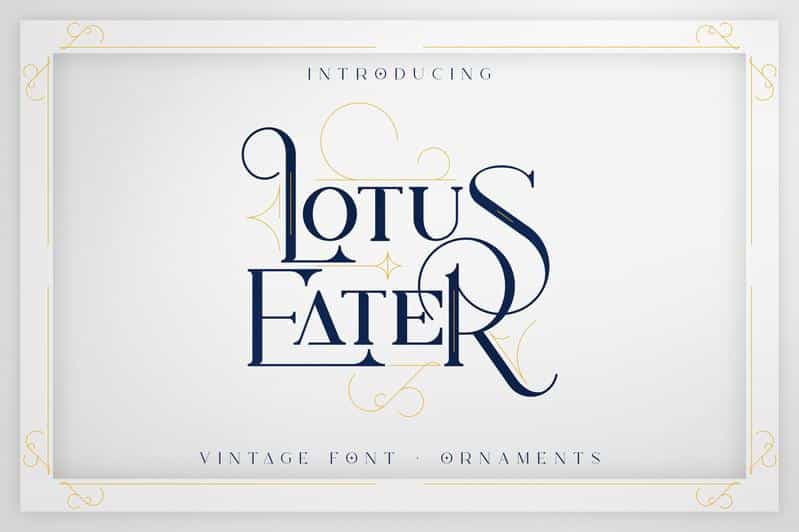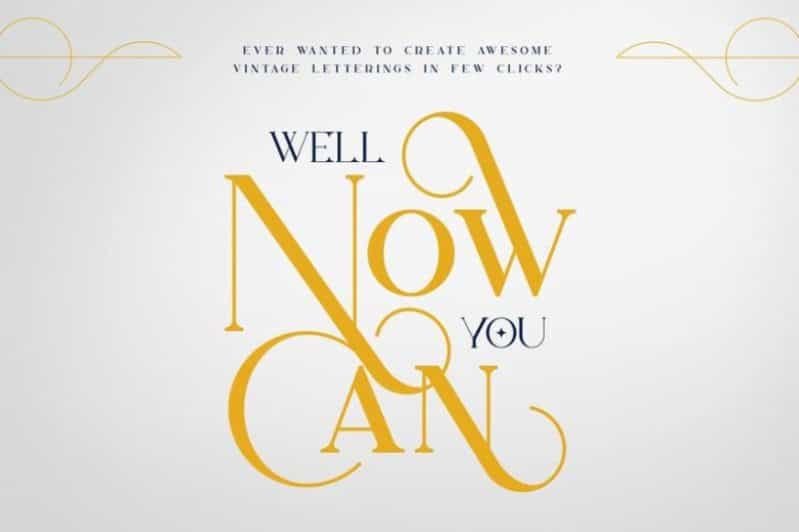
Discover Lotus Eater Font, part of the Serif Display collection—a versatile and unique font perfect for adding a personal touch to your projects. Download it for free and enjoy crafting designs with style, from invitations to social media posts. This font is available exclusively for personal use, giving you the freedom to create without limits. Unlock your creativity with Lotus Eater Font today!
Have you ever wished for a tool that would help you design beautiful retro type designs or logos with ease? Well now you can. Lotus Eater is a very clean and very vintage font with ligatures, a plethora of glyphs, ornaments, and multilingual support. This is a very useful font that can be easily read at both large and small sizes.